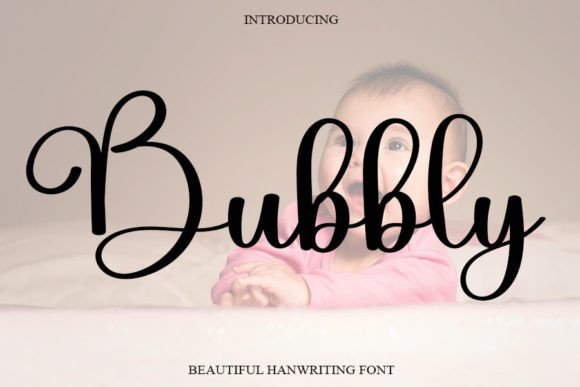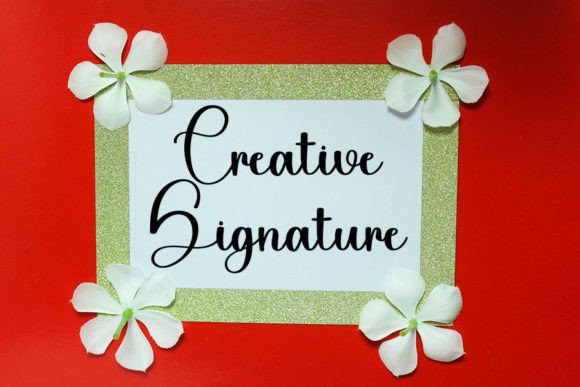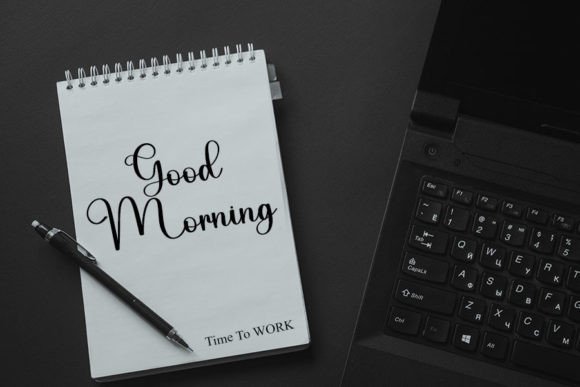
About Bubbly Font
Bubbly is a delightful and charming handwritten font that exudes sweetness and beauty. With characters that gracefully dance along the baseline, this font possesses a unique charm that will infuse a touch of luxury into any design project you choose to undertake.
The handwritten quality of Bubbly adds a personal and human touch to your creations, making it perfect for a variety of design applications. Whether you’re working on invitations, cards, or any other project that requires a warm and personalized aesthetic, Bubbly brings a distinct flair that captures attention.
The dancing characters along the baseline give Bubbly a lively and dynamic feel, creating a sense of movement and playfulness. This unique feature sets the font apart, making it suitable for projects where you want to convey a sense of joy and whimsy.
Picture Bubbly gracing wedding invitations, where its sweet and beautiful script adds a touch of romance and elegance. Visualize it on greeting cards, bringing a sense of warmth and charm to your heartfelt messages. Whether used in digital designs or printed materials, Bubbly adds a luxurious spark that elevates the overall visual appeal.
In the realm of branding and marketing, Bubbly becomes a distinctive choice to stand out from the crowd. Its handwritten charm adds authenticity, and the playful dance of characters brings a sense of energy and sophistication to your brand identity.
This font is not just a tool for creating text; it’s a design element that enhances the emotional resonance of your projects. As you embrace Bubbly in your creative endeavors, you’ll find that it has the power to transform ordinary designs into extraordinary ones, leaving a lasting impression on your audience.
Whether you’re a designer seeking a font that radiates sweetness and luxury or an individual embarking on a creative project, Bubbly invites you to infuse your designs with its captivating handwritten charm. Let it be the spark that adds a touch of magic to your creations, turning them into visual masterpieces that leave a lasting impression.